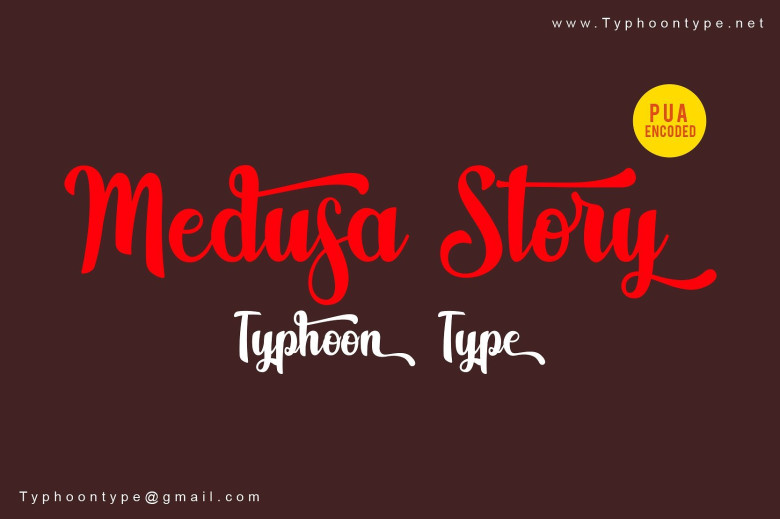
Medusa Story Script Font
Introducing Medusa Story Font! Medusa Story Font a new fresh & modern script with a handmade calligraphy style. Medusa Story This font perfect for logos, name tag, advertising, product packaging, clothing, social media & greeting cards.